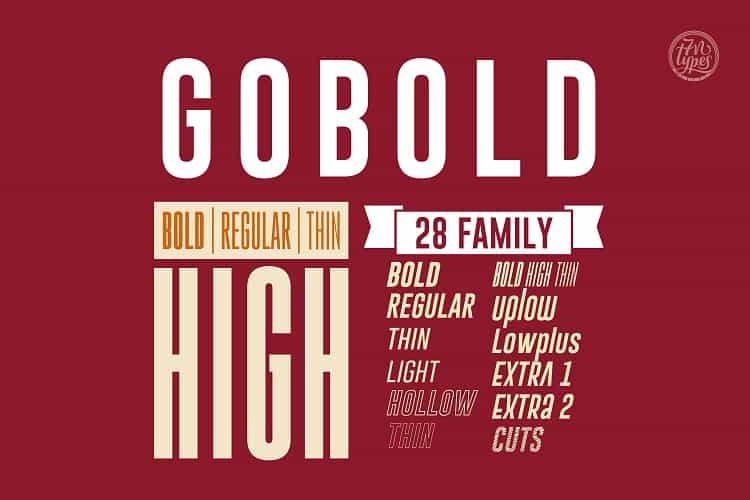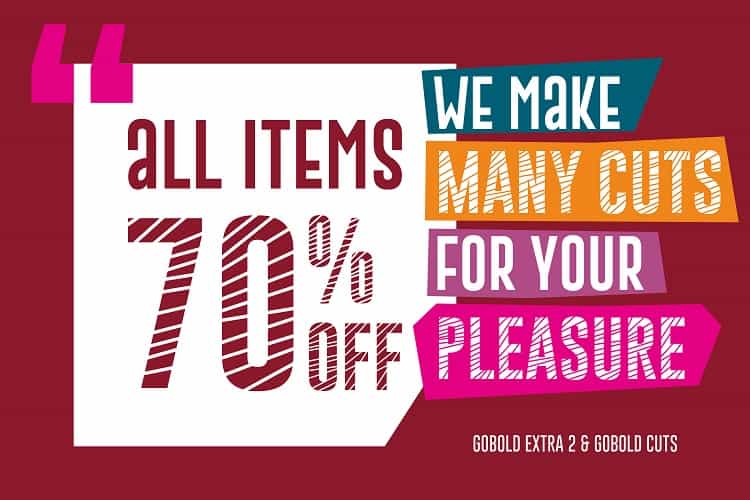
Gobold is a unique, very nominal and much needed typeface in the form of a sans-serif that comes with 28 styles. All alternatives correspond to the remaining members of the family, so Gobold can be used in any case.